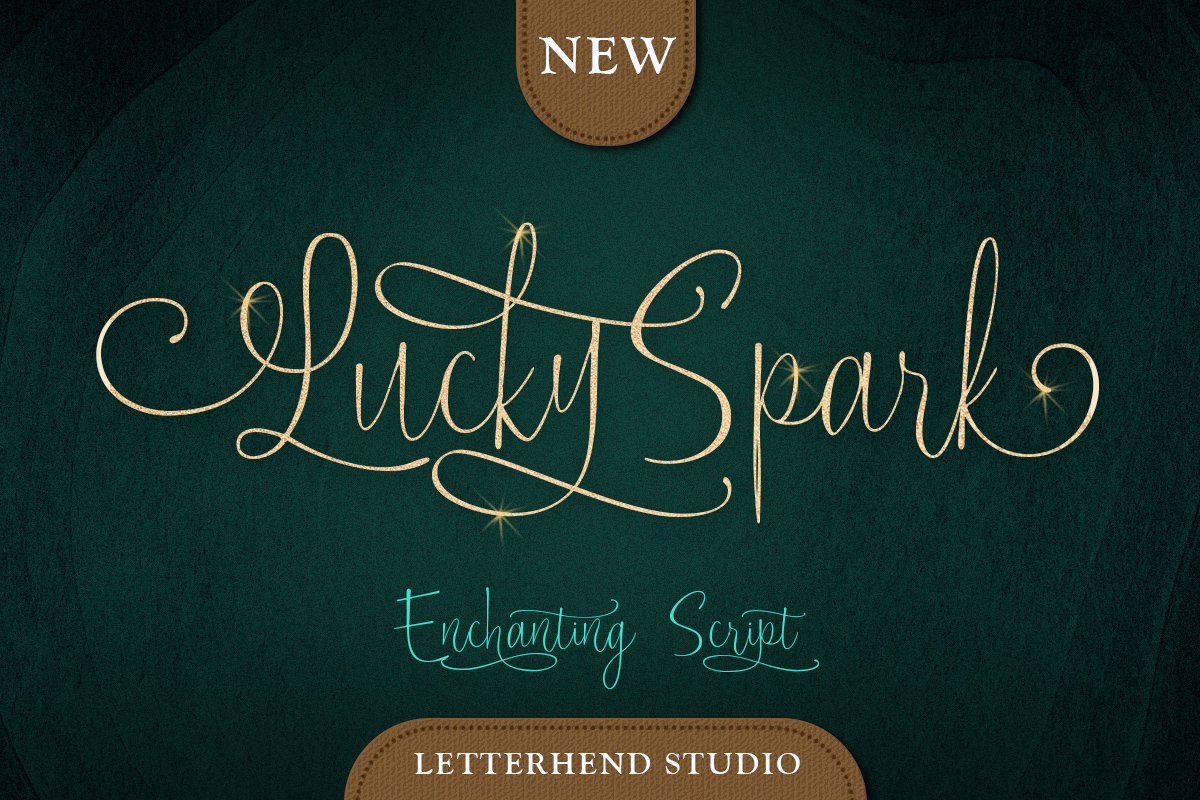
Lucky Spark Font
The Lucky Spark Font is a cheerful and energetic typeface designed to bring a touch of joy and playfulness to your creative projects. With its unique, lively letterforms and handwritten feel, this font is perfect for a wide range of applications that need a positive and fun aesthetic. It’s an excellent choice for branding for children’s products, greeting cards, social media graphics, and packaging that aims to feel friendly and approachable. The Lucky Spark Font has a delightful personality that makes it stand out, ensuring your designs are memorable and full of happy energy.
What makes the Lucky Spark Font so exciting is its exceptional ability to convey a sense of fun and happiness. This isn’t just a font; it’s a tool for creating a positive mood and connecting with an audience on an emotional level. The carefully crafted curves and quirky details of each character give the font a unique charm that is hard to ignore. It feels authentic and genuine, making it a perfect choice for brands and projects that want to communicate with a warm, personal voice. The Lucky Spark Font is a powerful tool for designers who want to create work that feels fresh, vibrant, and full of life.
The Lucky Spark Font family is typically comprehensive, offering a full set of uppercase and lowercase letters, numbers, and punctuation. For a playful font of this nature, you might also find special features like ligatures and stylistic alternates that add to its unique, handcrafted look. These features provide designers with the flexibility to customize their typography, creating truly bespoke and professional results. The extensive character set and special options ensure you have all the tools you need to build a complete and consistent visual identity across all your projects.